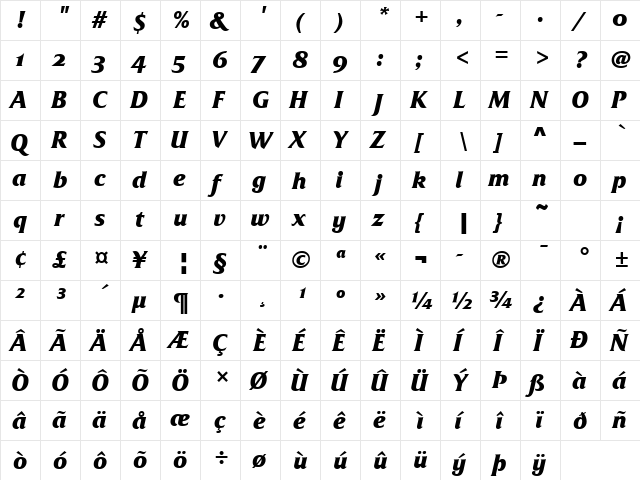
Friz Quadrata OS TT BoldItalic Font Preview
Design Context for Friz Quadrata OS TT Typeface
Friz Quadrata OS TT offers clean, dependable letterforms without strong stylistic allegiance, making it a practical choice for designers who need flexibility. Its italic angle brings a sense of urgency and motion to the letterforms. Its bold stroke weight gives it real presence on the page.
Pro Tip: Try Friz Quadrata OS TT for annotation and caption copy alongside an upright companion — the contrast in angle creates a dynamic but ordered typographic system.